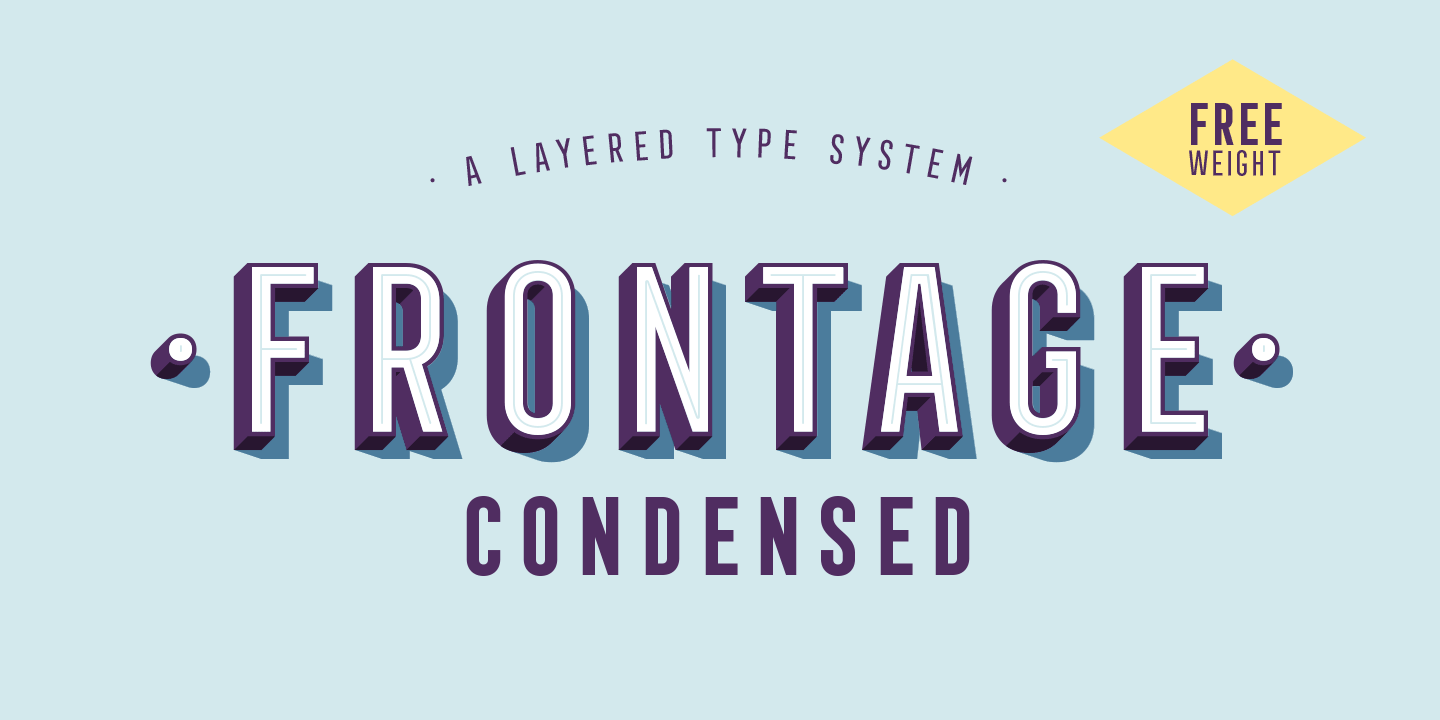
Frontage Condensed Font is perfect for vintage signage, retro branding, theater posters, circus themes, carnival designs, entertainment advertising, and nostalgic packaging projects. This distinctive typeface captures the spirit of classic American showbiz typography.
Frontage Condensed Font is exciting because it masterfully recreates the bold, attention-grabbing style of vintage marquee lettering with its dramatic dimensional effects and classic condensed proportions. Its layered design system allows for stunning multi-color applications and eye-catching displays.
The Frontage Condensed Font family includes multiple layered styles that can be combined to create three-dimensional effects, shadows, and highlights. This comprehensive system provides designers with complete control over vintage-inspired typographic presentations.
Frontage Condensed Font Free Download offers designers access to an authentic recreation of classic American display typography from the golden age of entertainment. This remarkable typeface features carefully crafted letterforms that capture the essence of vintage theater marquees, circus posters, and carnival signage. The font's condensed proportions maximize impact while conserving horizontal space, making it ideal for headlines and display applications where visual punch is essential. Its layered design system enables sophisticated multi-dimensional effects that bring text to life with depth and visual interest. Frontage Condensed Font delivers unmatched authenticity for projects requiring genuine vintage American flair, from retro branding campaigns to period-specific design work. The typeface's bold character and theatrical presence ensure it commands attention while maintaining the nostalgic charm that defines classic entertainment typography.